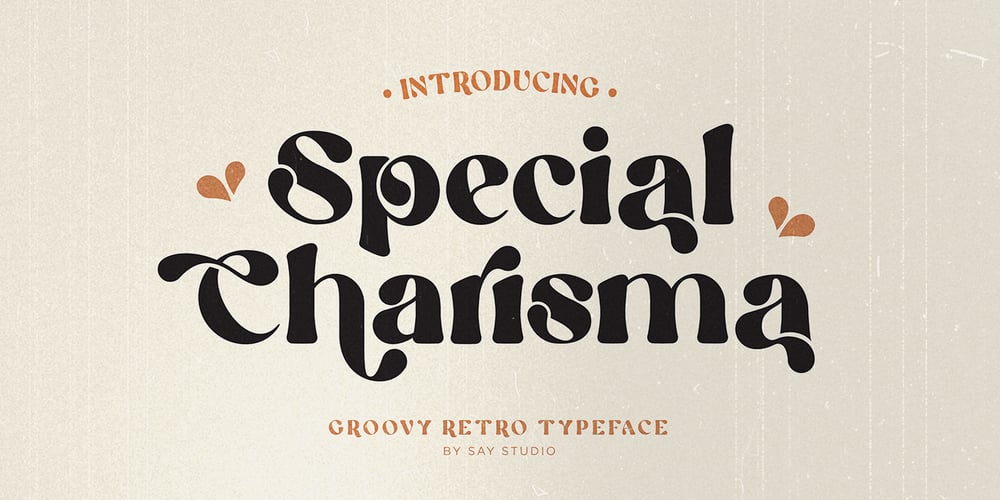
Special Charisma
Special Charisma font
Special Charisma Font Family was designed by Mussyayin and published by Say Studio. Special Charisma contains 3 styles and family package options. Special Charisma is a stylish vintage font inspired by 70’s groovy vibe with a touch of modernity. It looks amazing at display sizes and is easily readable in text size. Olive Village comes with access to your OpenType features, large selection of alternate glyphs and ligatures. There are three versions of this font : REGULAR, ITALIC, and OUTLINE.WHAT’S INCLUDED :Multilingual SupportFor access to Stylistic Alternates is required software with glyphs panel like Photoshop and lllustrator. No special software is required to use Ligatures.Have a wonderful day,Saystudio